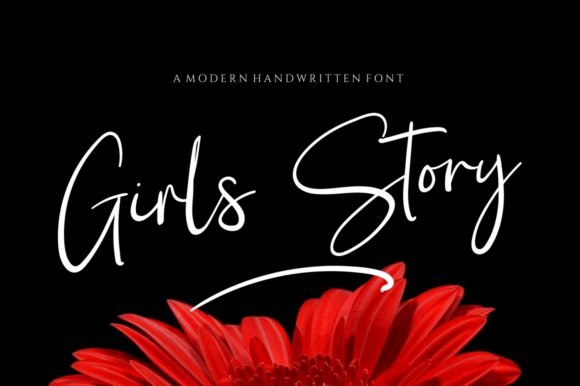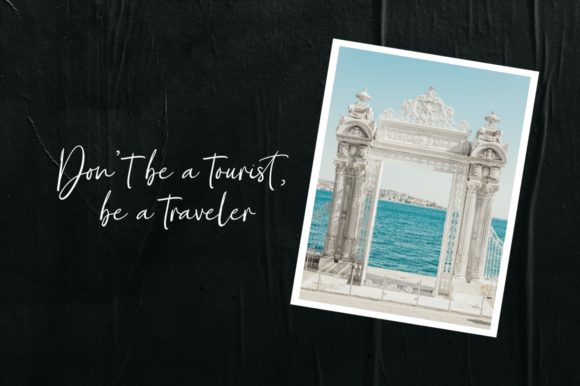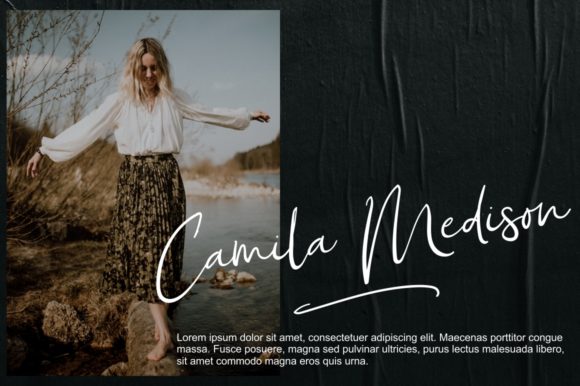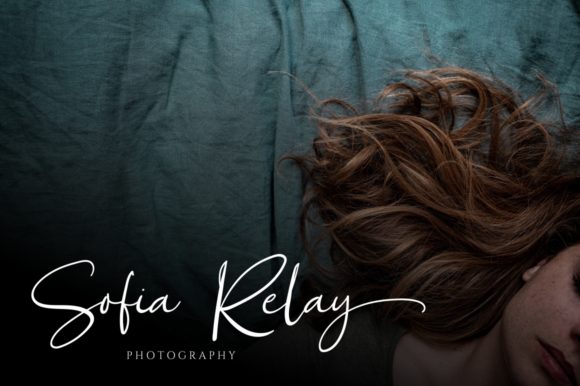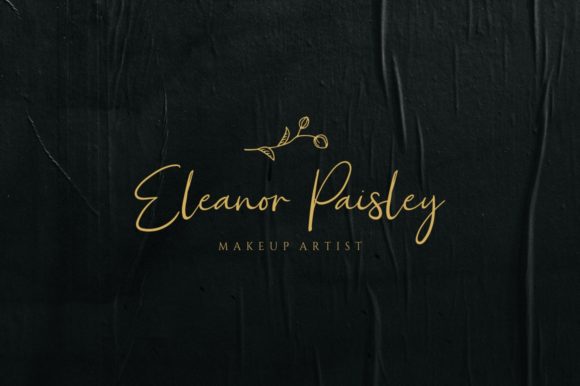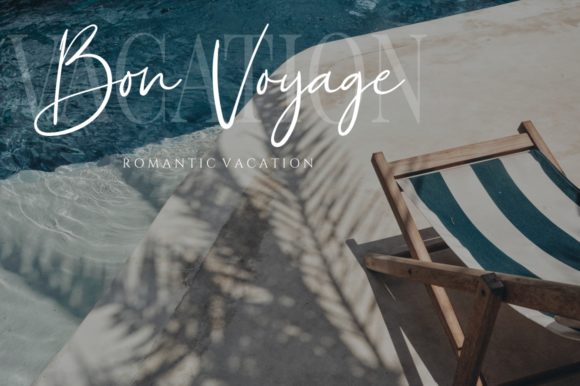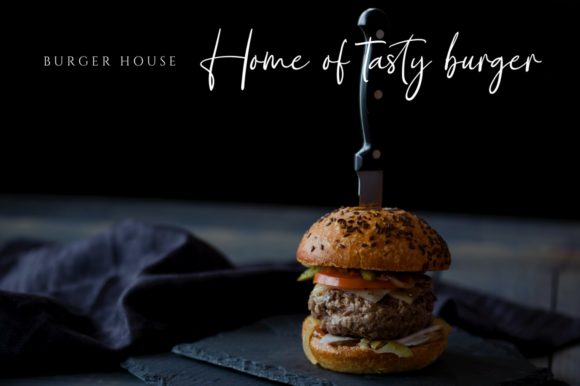
Enter Girl Story Font, a delicate and elegant handwritten font that’s sure to bring your designs to life. With its distinct and well-rounded letters, this font is a masterpiece that’s perfect for any project that requires a touch of sophistication and whimsy. Whether you’re designing a wedding invitation, a children’s book, or a branding campaign, Girl Story Font is the perfect choice.
As a PUA-encoded font, Girl Story Font makes it easy to access all of its glyphs and swashes, giving you the creative freedom to experiment and push the boundaries of your design. Whether you’re a seasoned pro or just starting out, this font is a valuable addition to any designer’s toolkit.
Girl Story Font Key Features
- Font Family: Girl Story Font is a sans-serif script font, ideal for creating a playful and modern look.
- Unique Characteristics: Girl Story Font features a unique, handwritten style with subtle flair and movement, making it perfect for creating a personal and emotive look.
Girl Story Font Review
As a designer, I was excited to dive into the Girl Story Font, but my experience was a mix of excitement and frustration. ✨ One of the things that really stood out to me was the font’s feminine and playful vibe, making it perfect for children’s books, fashion brands, and other designs that require a touch of whimsy. The font’s subtle curves and rounded edges also add a sense of approachability and friendliness.
However, I did encounter some limitations ⚠️ that made it difficult to work with. The font’s kerning can be inconsistent at times, leading to awkward spacing between certain letters. Additionally, the font’s weight range is limited, making it challenging to create visually appealing typography when working with longer blocks of text.
Here are some specific issues I encountered:
- Kerning inconsistencies: The font’s kerning can be off, especially with letters like “a” and “v” which can appear too close together.
- Weight limitations: The font only comes in a few weights, making it difficult to create visually appealing typography for longer blocks of text.
- Lack of ligatures: The font is missing ligatures, which can make it difficult to create smooth, connected text.
Overall, I think the Girl Story Font has potential, but it needs some work to become a top-notch font. With some adjustments to kerning, weight range, and ligatures, I think it could be a real winner.
For the best results, use the Girl Story Font in combination with a light to medium background color. Avoid using it with dark or bold backgrounds, as it may become difficult to read.
Experiment with different font sizes and styles to create a visually appealing design.
The Girl Story Font is ideal for:
- Children’s book covers and illustrations
- Teenage magazine covers and editorial content
- Choose a background paper or cardstock that complements the font’s pastel colors.
- Use a mix of uppercase and lowercase letters to add a playful touch.
- Embellish the text with doodles or hand-painted designs to give it a unique look.
- Add a ribbon or twine closure for a vintage touch.
- Include a few decorative stickers or washi tape to add a pop of color.